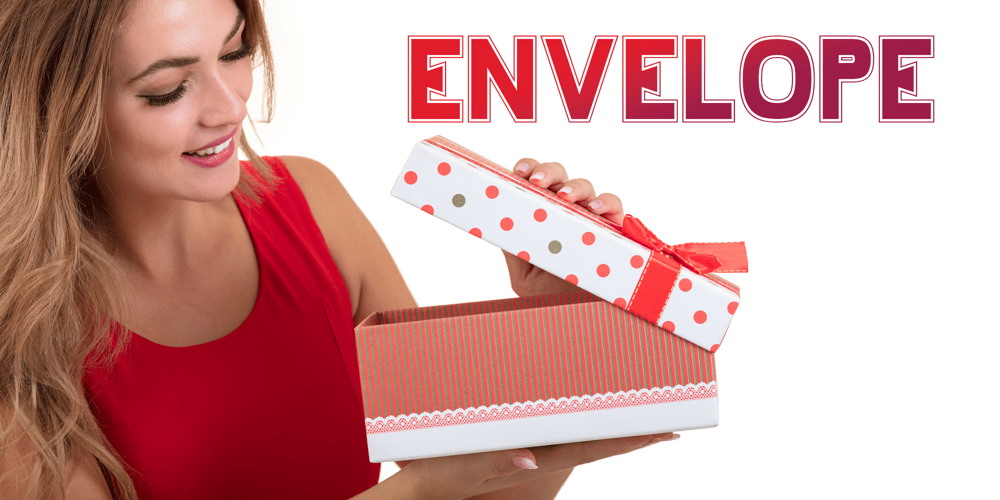
Envelope Font Family was designed by JC Hyper and published by HyperCGI. Envelope contains 1 styles and family package options. Whether or not you still use snail mail, there’s something about folding a piece of card or paper and putting it inside a pristine white envelope. A sense of nostalgia or the tactile pleasure of mailing a card to someone you care for. The Font “Envelope” reminds us of the often overlooked innocent and fine wrapping. Envelope is an excellent display uppercase-only font for use on larger font display purposes.